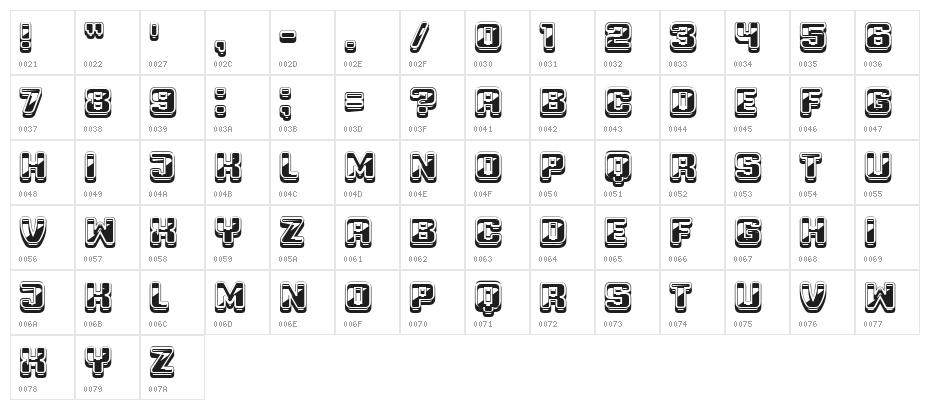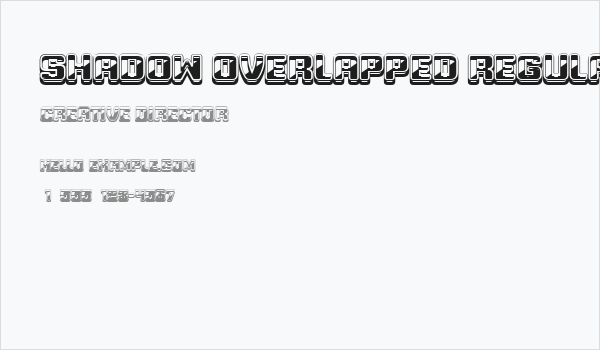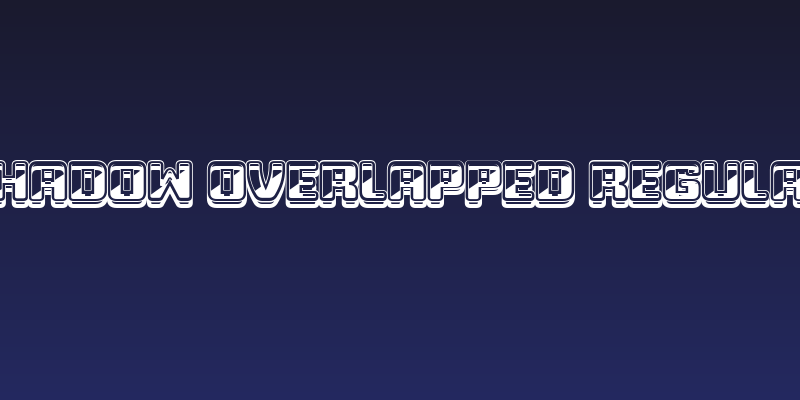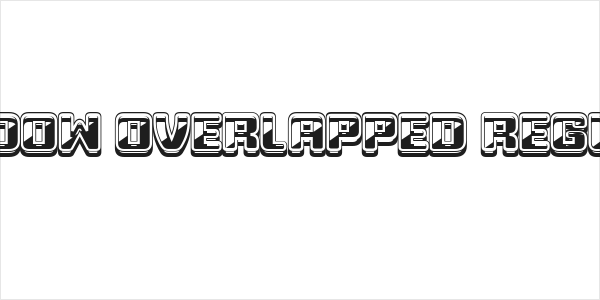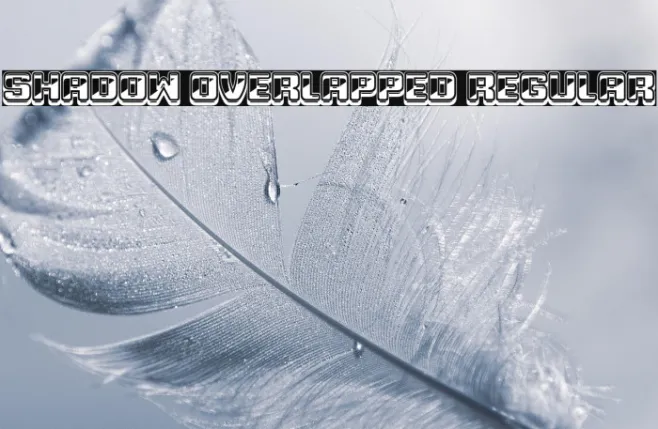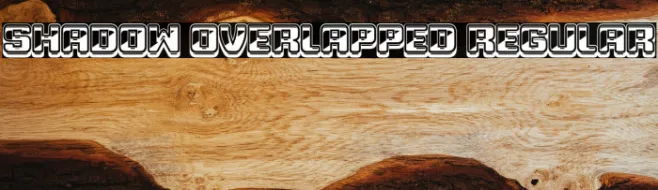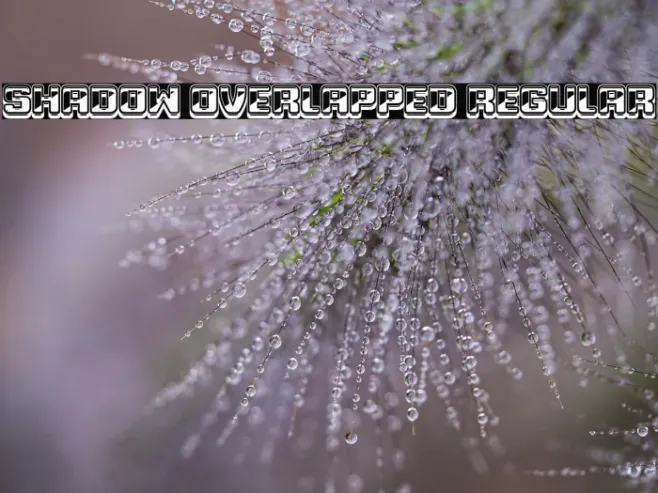
Shadow Overlapped Regular Font
Shadow Overlapped Regular Description
This font features a bold, three-dimensional appearance with a shadow effect that creates a sense of depth and impact. The characters are uppercase and numerals, each outlined with a thick border that enhances the shadow illusion. The style is geometric and structured, with clean lines and a modern aesthetic. The shadow effect is consistent across all characters, providing a cohesive look. This font is highly decorative, making it suitable for attention-grabbing designs.
| Proposed Projects | Ideal for posters, headlines, logos, and any design requiring a striking, modern look. |